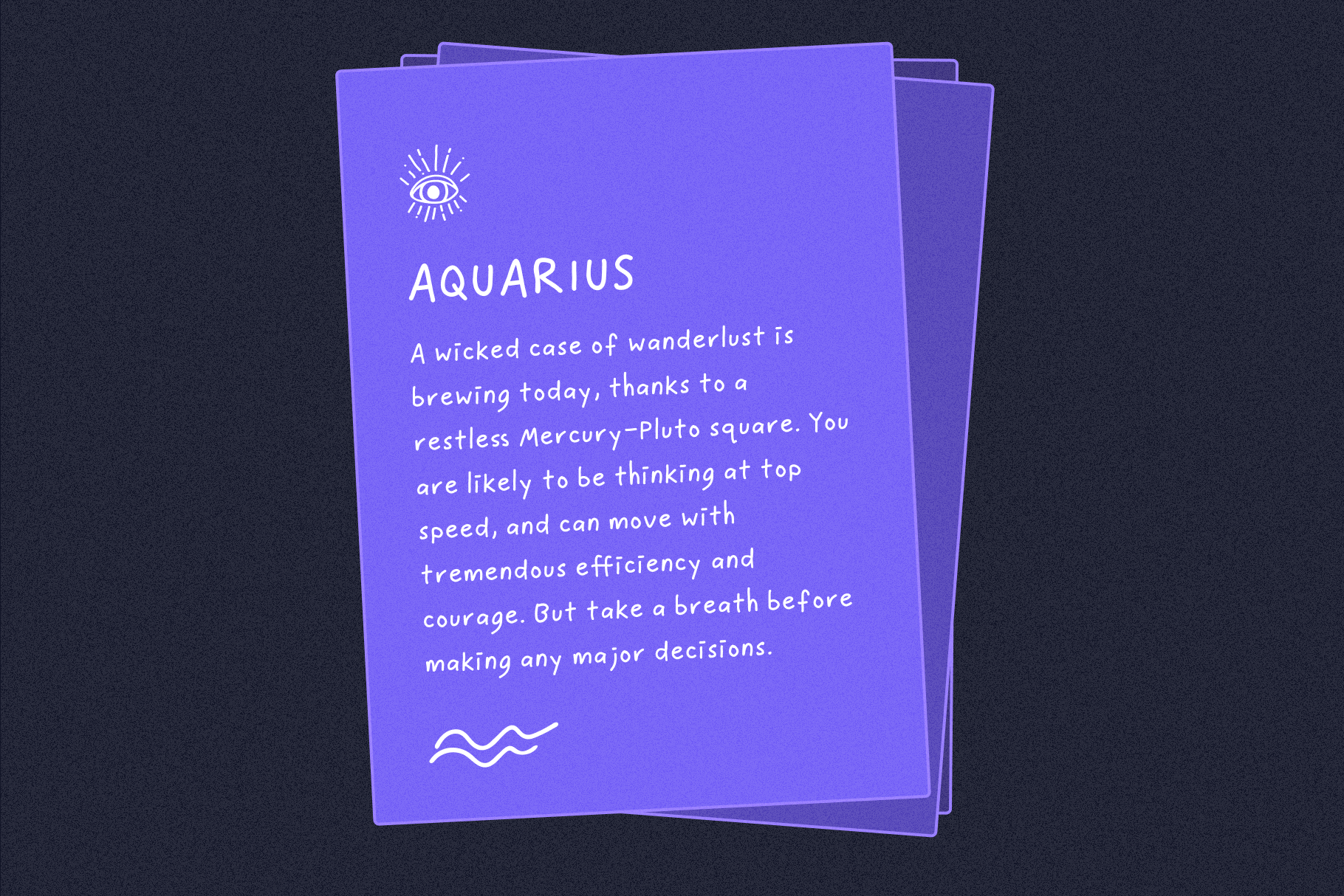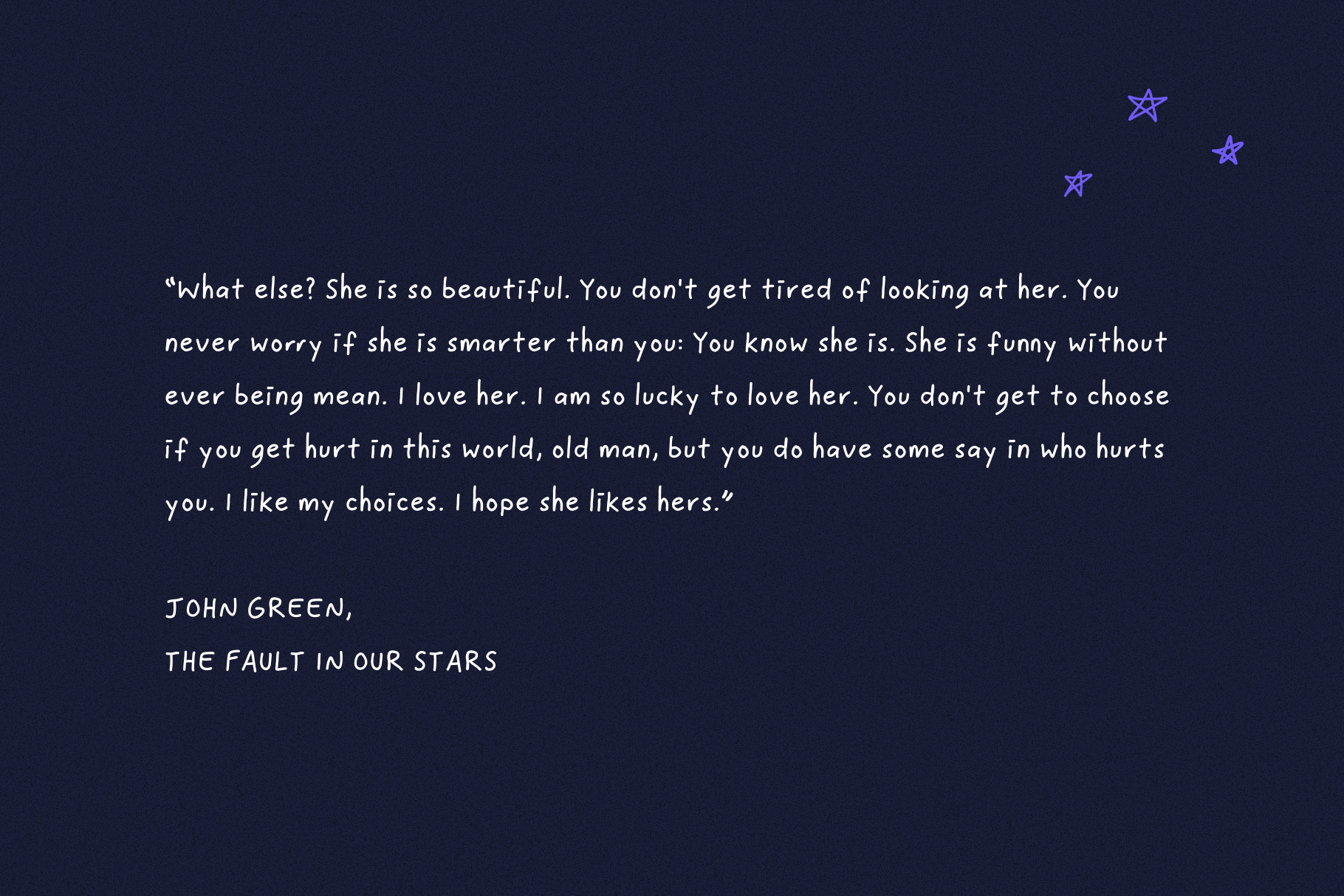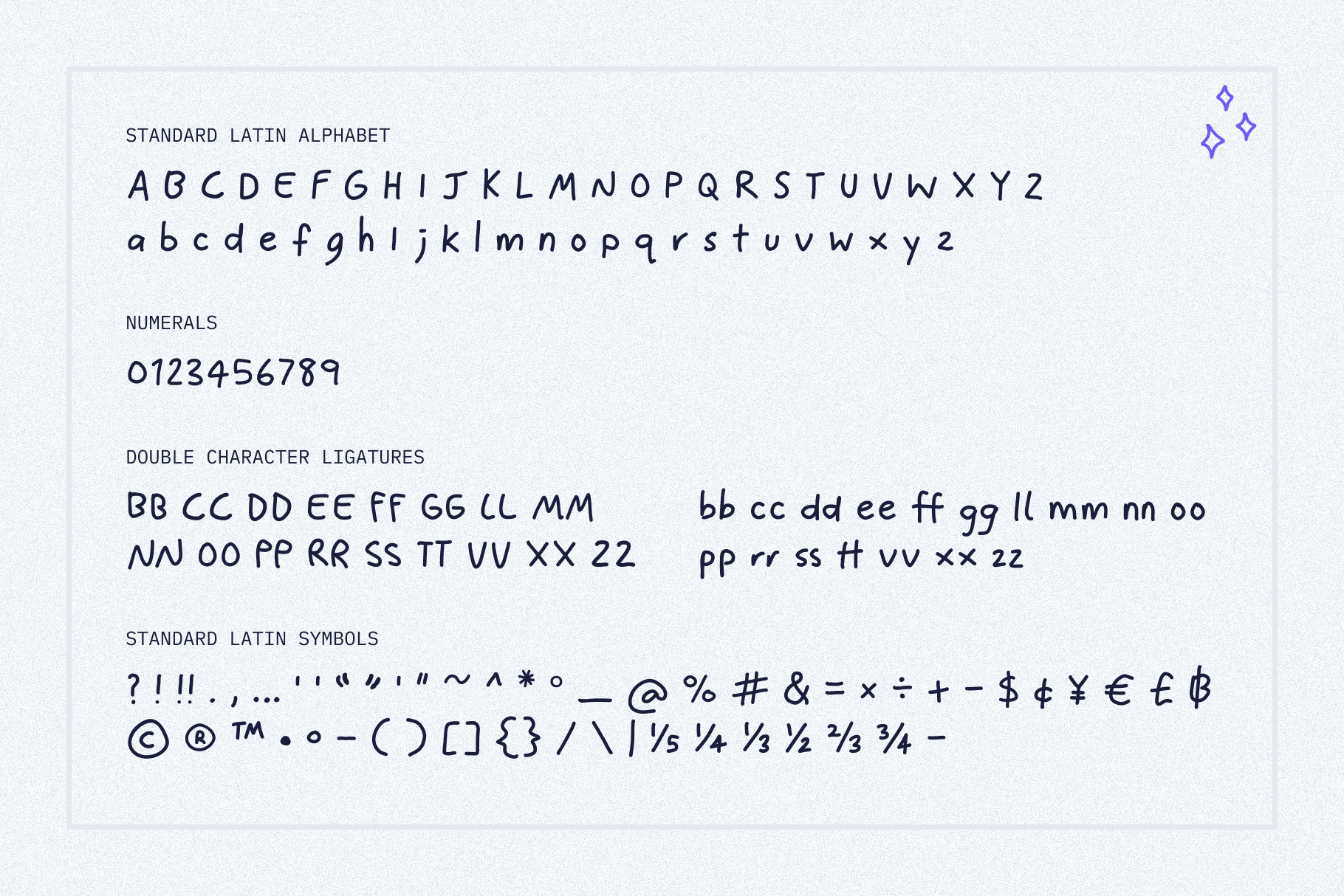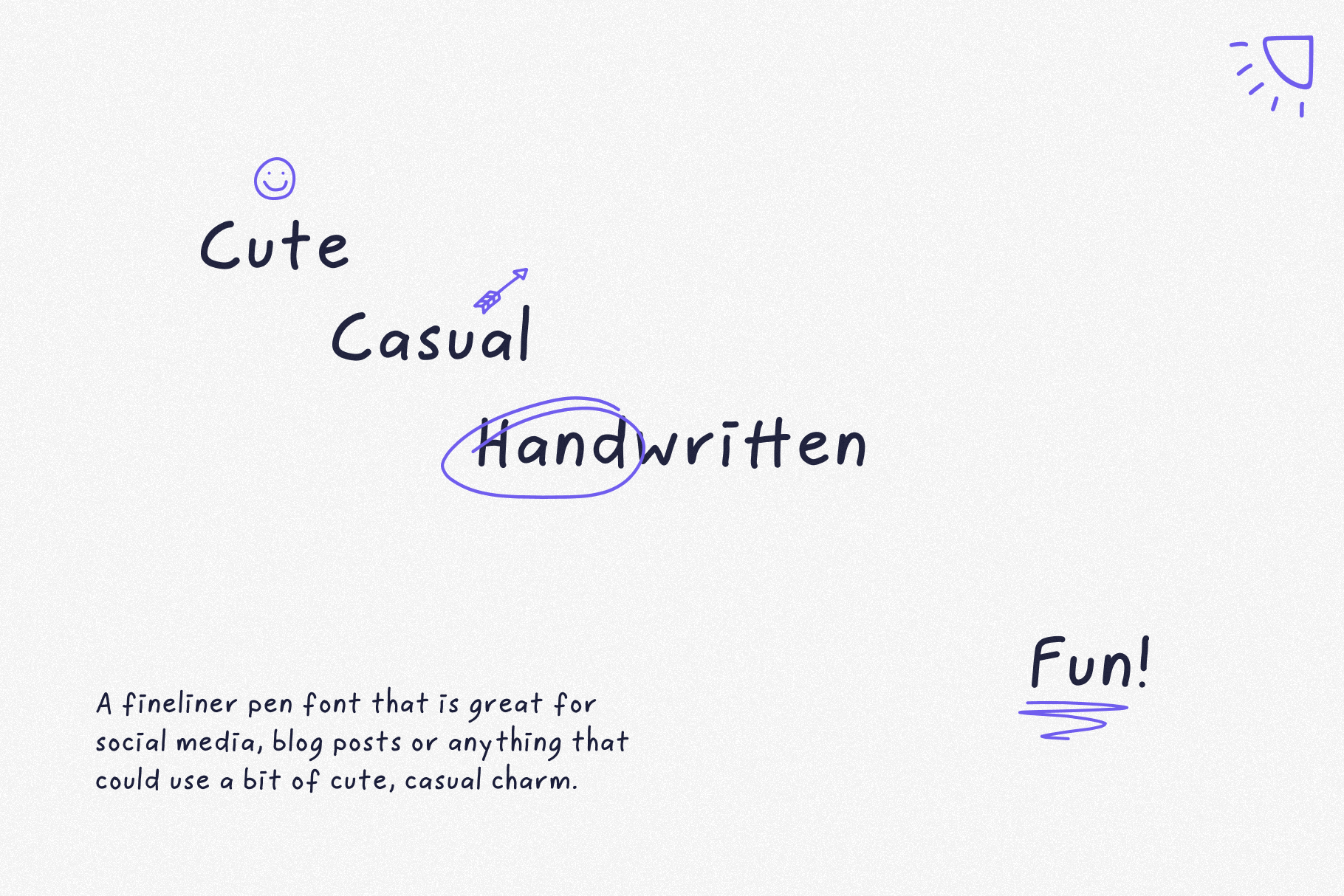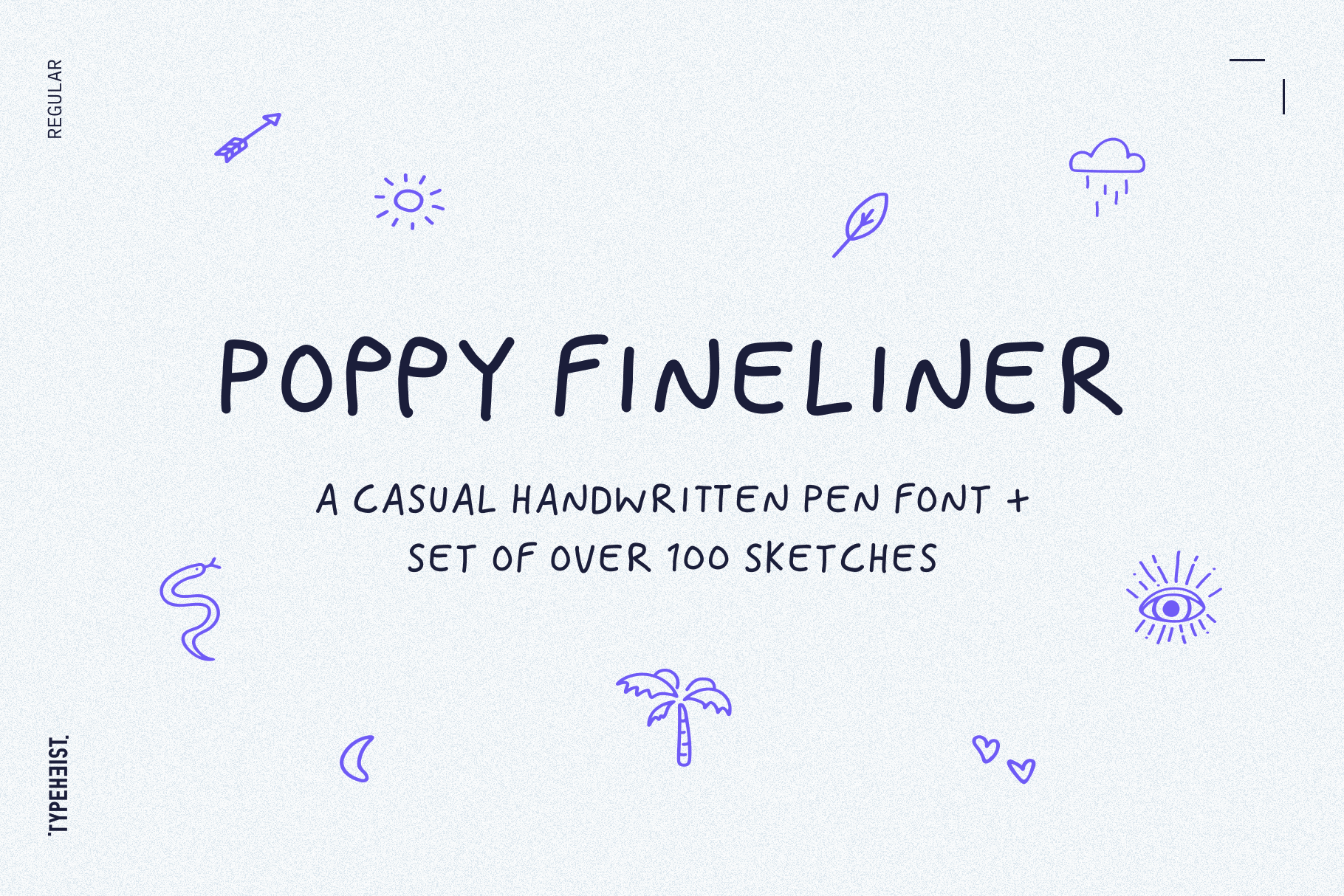
Poppy Fineliner
Poppy Fineliner is a cute and casual pen handwriting font. Included are two versions of each letter and number, so you can mix and match when you need to.
As Poppy Fineliner includes set of over 100 pen sketches, you can add these hand-drawn doodles to your designs - easy!
If you need a touch of casual charm in your designs, Poppy Fineliner is your answer. Its friendly tone and approachable personality is perfect for social media posts, packaging design or even party invites.
Included in the sketch set are cute illustrations of shells, plants, scribbles, arrows, stars and more.